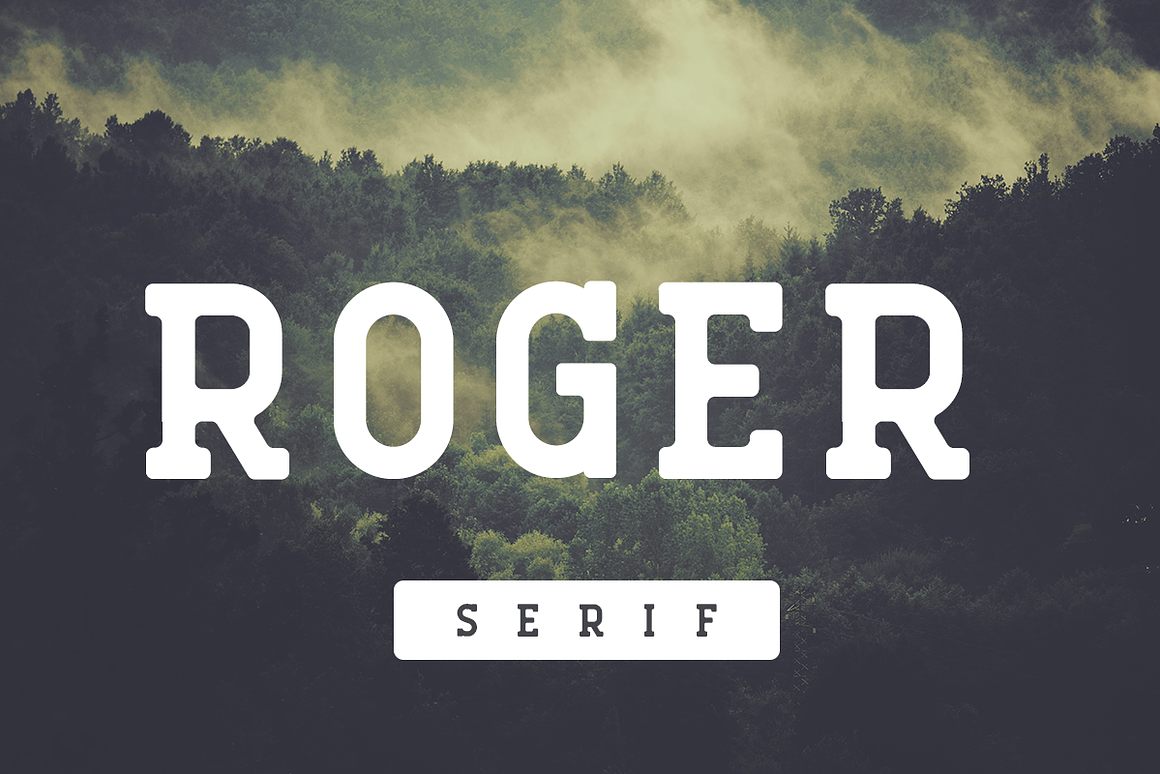
Roger Serif Font
Roger Serif Font is perfectly suited for academic publications, traditional book designs, professional newspapers, scholarly journals, classic literary works, educational materials, formal business documents, prestigious award certificates, and distinguished institutional communications.
What makes Roger Serif Font so exciting is its timeless scholarly elegance and impeccable readability that brings classical typography tradition into perfect harmony with contemporary publishing demands. This distinguished typeface embodies the finest qualities of traditional serif design with its carefully balanced proportions and refined character shapes that have been proven to enhance reading comfort over centuries of use. The font's authoritative presence and classical details create an immediate sense of credibility and intellectual sophistication that resonates with educated audiences who value substance and scholarly excellence. Roger Serif Font stands out through its ability to convey authority, tradition, and academic distinction, making it perfect for projects that need to establish intellectual credibility while providing exceptional reading experiences for serious content and professional communications.
The Roger Serif Font family includes Light, Regular, Medium, Bold, and Black weights, each available in both roman and italic styles for comprehensive typographic flexibility. The family also features small caps, old-style figures, and advanced scholarly ligatures that enhance the font's academic appeal and provide complete solutions for sophisticated editorial projects.
When you choose Roger Serif Font Free Download, you're selecting a typeface that brings authentic scholarly authority and classical typography excellence to your publishing projects. This font excels in creating designs that need to convey expertise, tradition, and intellectual depth. Its distinguished serif appearance makes it particularly effective for educational institutions, publishing houses, and professional organizations that require typography that builds trust and enhances reading comprehension.
The technical excellence of Roger Serif Font includes comprehensive character sets supporting multiple languages, advanced OpenType features, and precision-tuned spacing optimized for extended reading comfort. The font has been extensively tested across various reading environments to ensure consistent performance and maximum legibility, making it ideal for both digital screens and traditional print applications where clarity is paramount.
Whether you're publishing academic works, designing educational materials, creating professional documentation, or developing scholarly communications that require classical authority and superior readability, Roger Serif Font delivers the perfect combination of traditional typography excellence and contemporary functionality that ensures your content is presented with the dignity and clarity it deserves.